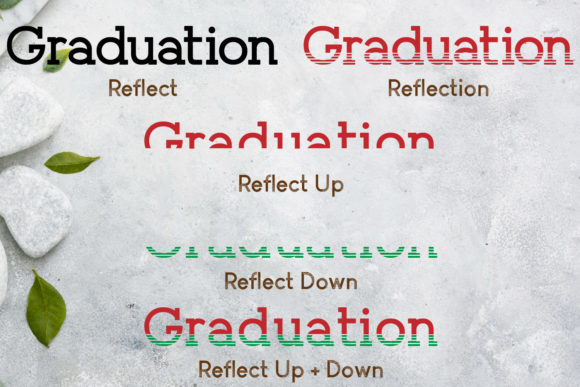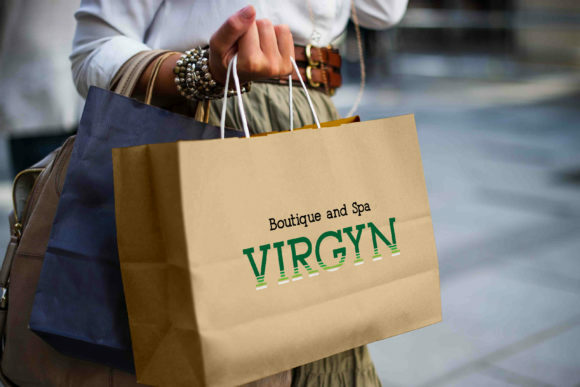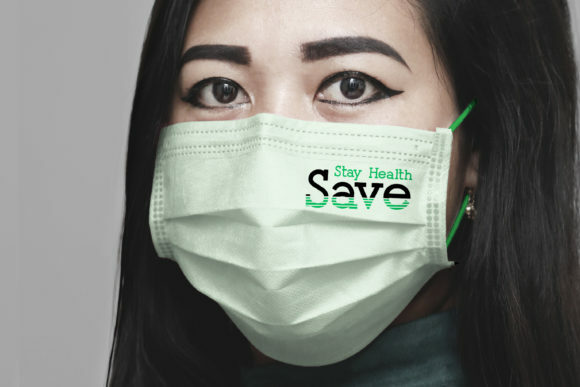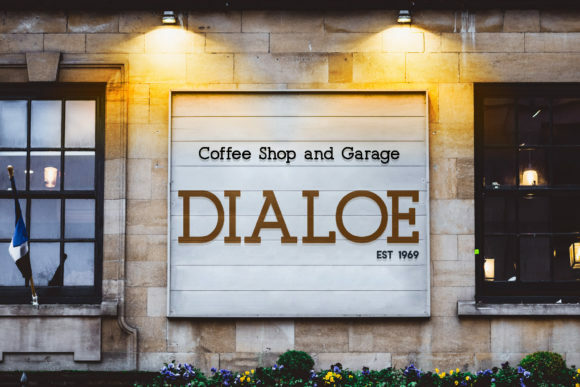
Reflection Font
REFLECTION FONT SPECIMEN
Reflection is fresh slab serif font. It can easily be matched to an incredibly large set of projects, so add it to your creative ideas and notice how it makes them stand out!